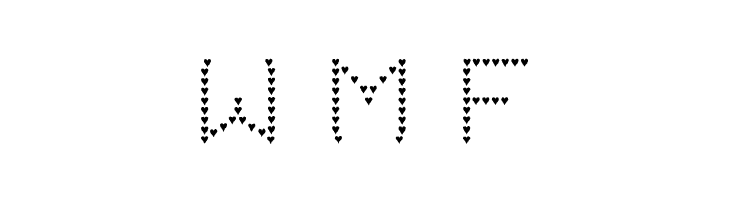
JessicaPrint Font
- Font: JessicaPrint
- Weight: Medium
A playful font composed entirely of small heart shapes, perfect for romantic and whimsical designs.